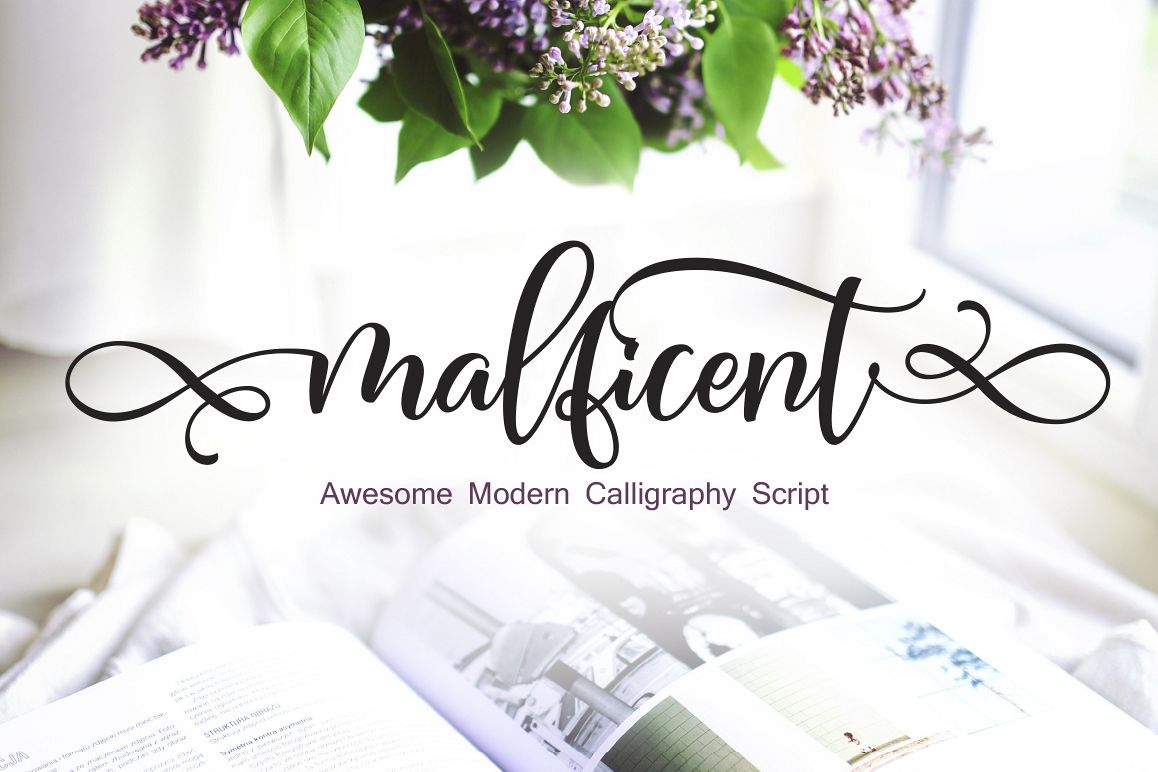
MALFICENT
Malficent Alternates
Proudly presents our latest product Malficent Script. I hope you are
interested in this font,The fonts are great for product logo,wedding
card logo, Banner, Graphic design, clothing brand logo, and much more.
Malficent Script Font equipped with :
• Uppercase,
• lowercase
• numeral
• punctuation
• International Glyphs
• alternates
• Stylistic Set
MALFICENT example image 1